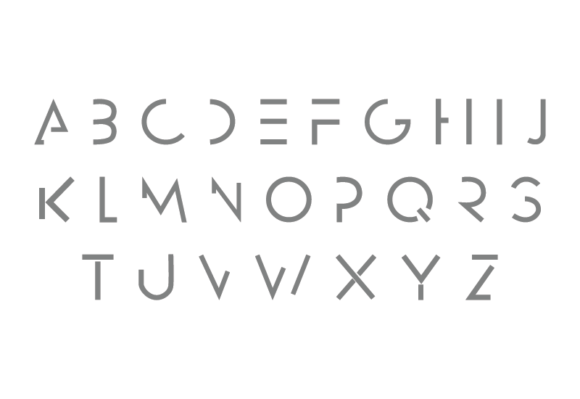
One of the key factors that made that design shine was the use of a modern Sans Serif font – the Futuristic Font. This cool and sleek typeface is perfect for adding a touch of futurism to your creative projects. Its clean lines and geometric shapes make it a valuable addition to any designer’s toolkit. By incorporating the Futuristic Font into your designs, you can give them a cutting-edge feel that’s sure to grab attention.
Futuristic Font Key Features
- Font Family: Futuristic Font is a sans-serif font family, designed to evoke a sense of modernity and innovation.
- Unique Characteristic: Futuristic Font features a unique blend of geometric and organic shapes, giving it a distinctive and futuristic feel.
- Character Set: Includes a comprehensive character set, including Latin, Cyrillic, and Greek alphabets, as well as punctuation and symbols.
Futuristic Font Review
Futuristic Font is an intriguing choice for any designer looking to make a statement. ✨ I love the sleek, high-tech feel it brings to any project. The font is perfect for sci-fi themed designs, futuristic interfaces, and anything that needs a dash of edginess. ✨ The clean lines and geometric shapes create a sense of modernity and sophistication.
However, there are some limitations to consider. ⚠️ One of the main issues I have with Futuristic Font is its lack of readability at smaller font sizes. This can be a problem for designs where text needs to be displayed in a condensed format. Additionally, the font may not be suitable for body text due to its futuristic feel, which may not be ideal for lengthy passages of text.
Here are some pros and cons to consider:
- ✨ Suitable for sci-fi, futuristic, and high-tech designs
- ✨ Sleek, modern aesthetic
- ⚠️ Poor readability at smaller font sizes
- ⚠️ May not be suitable for body text
Overall, I would recommend Futuristic Font for designers who need a bold, futuristic font for their projects. Just be mindful of the potential limitations, and use it sparingly to avoid overwhelming your audience.
Use Futuristic Font for:
1. Science fiction or futuristic-themed designs.
2. Creating a bold, eye-catching headline.
3. Adding a touch of futurism to your branding or logo.
For optimal results, use the Futuristic Font in conjunction with bright, neon colors and bold graphics.
3. Roboto Mono
Roboto Mono is a monospaced sans-serif font that’s designed for coding and programming. It’s a great alternative to Futuristic Font for projects that require a clean and modern design, but with a more technical feel. Roboto Mono is more versatile and can be used in a variety of contexts, from coding interfaces to technical documentation.